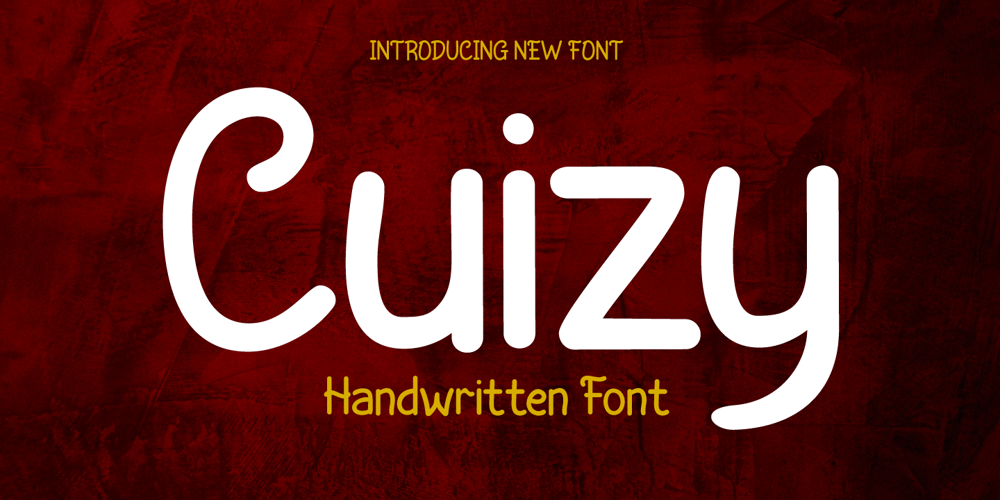
Cuizy Font Family was designed by Rozikan and published by Twinletter. Cuizy contains 1 styles and family package options. Introducing “Cuizy Font” – Where Handwriting Meets Distinctive Design.Cuizy Font is your key to adding a touch of personal charm and uniqueness to your projects. Crafted with precision, it effortlessly blends the warmth of handwritten text with contemporary style.What’s Included : File font All glyphs Iso Latin 1 Alternate, Ligature Simple installations PUA Encoded Characters – Fully accessible without additional design software. Fonts include Multilingual support